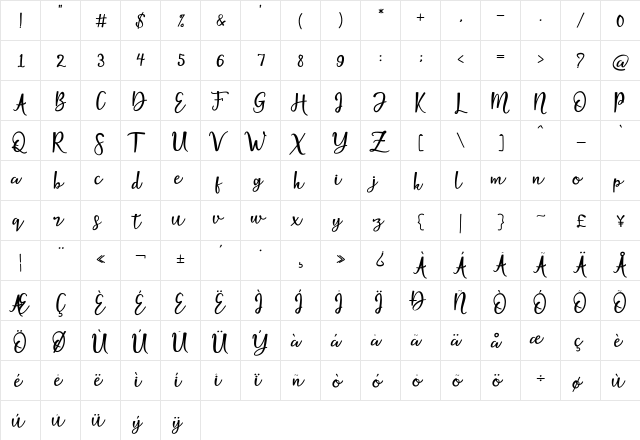
Villaque Script Regular
Design Context for Villaque Script Typeface
Villaque Script flows with the natural rhythm of handwritten lettering, making it ideal for designs that call for warmth and personal expression.
Font Pairing: Combine Villaque Script with a simple geometric sans for maximum contrast — the tension between flowing curves and clean structure is a classic typographic pairing.
Pro Tip: Pair Villaque Script with a clean sans-serif for supporting text. The contrast between fluid script and geometric structure creates an elegant typographic hierarchy.